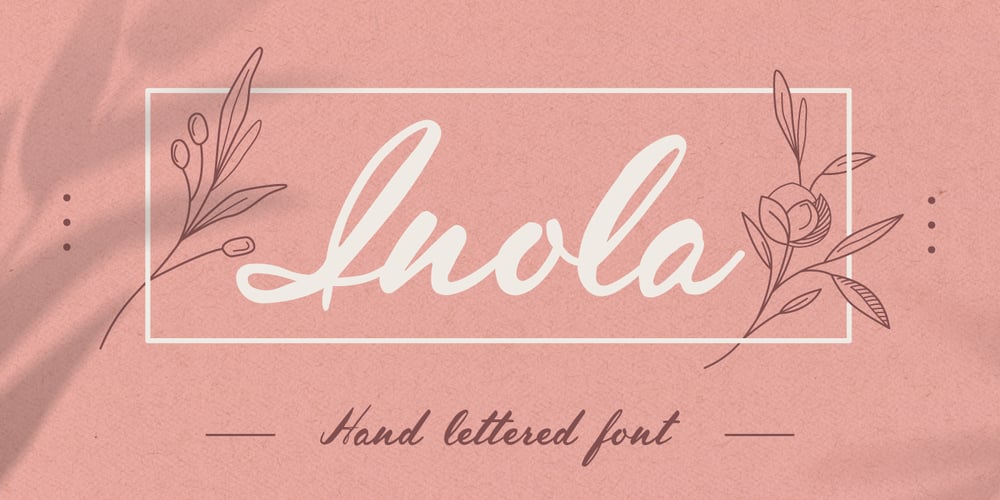
Inola
Inola font
Inola Font Family was designed by Gatis Vilaks, Evita Vilaka and published by WildOnes. Inola contains 1 styles and family package options. Inola Hand Lettered Font in modern calligraphy style. It resembles actual handwritten letters that can make a great font for branding, logo design, and graphic identities.Inola includes ligatures and stylistic alternates for some letters and floral symbols to include in your designs, find them all in the glyphs panel.Inola Hand Lettered Font is perfect for logo design, branding, art prints, wedding cards and invitations, packaging, business cards, greeting cards, posters, magazines, social media, home decors, stationary, blogs, and website design, and more.Inola Hand Lettered Font contains all uppercase and lowercase letters from A to Z and numbers from 0 to 9. Latin Extended letters are supported together with other bonus characters.